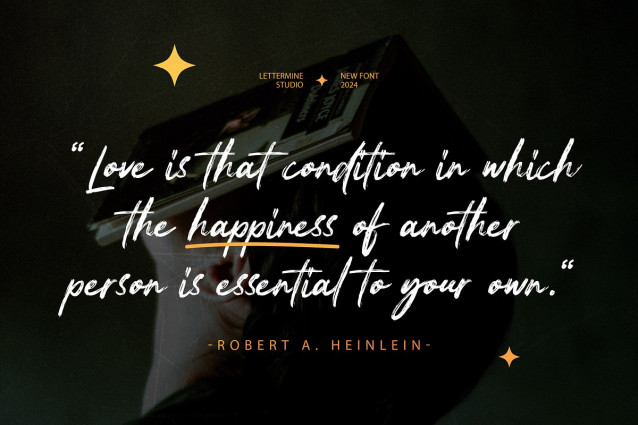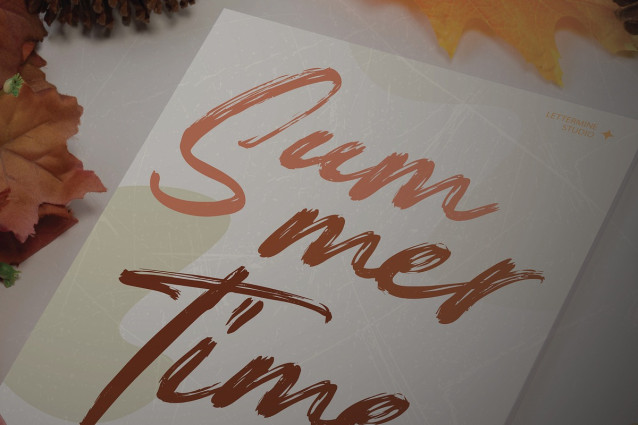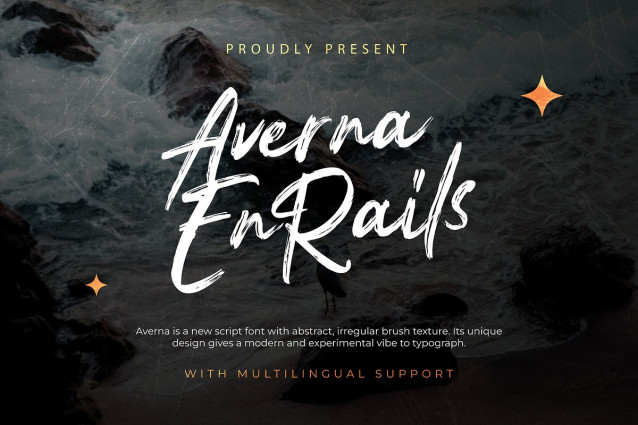
Averna En Rails Font
Averna En Rails Font Elevate your projects with this exquisite font that seamlessly combines classic charm with modern flair. Crafted with precision, AVERNA EN RAILS is tailored to meet your creative needs, offering a plethora of features to enhance your designs effortlessly:
ALigatures: Enhance the flow and aesthetics of your text with beautifully crafted ligatures.
AUpper Case & Lowercase: Versatile in nature, allowing you to play with different styles and compositions effortlessly.
A Punctuation: Complete with a comprehensive set of punctuations, ensuring clarity and coherence in your designs.
AVERNA EN RAILS is the perfect choice for a variety of projects, including but not limited to:
A Wedding Invitations: Add a touch of sophistication to your special day with elegant invitations that speak volumes about your style.
A Branding: Establish a memorable brand identity with a font that exudes professionalism and refinement.
A Quotes & Typography Art: Transform words into art with fluid strokes and captivating ligatures, perfect for posters, social media posts, and more.
A Experience the seamless blend of tradition and innovation with AVERNA EN RAILS. Elevate your designs today!